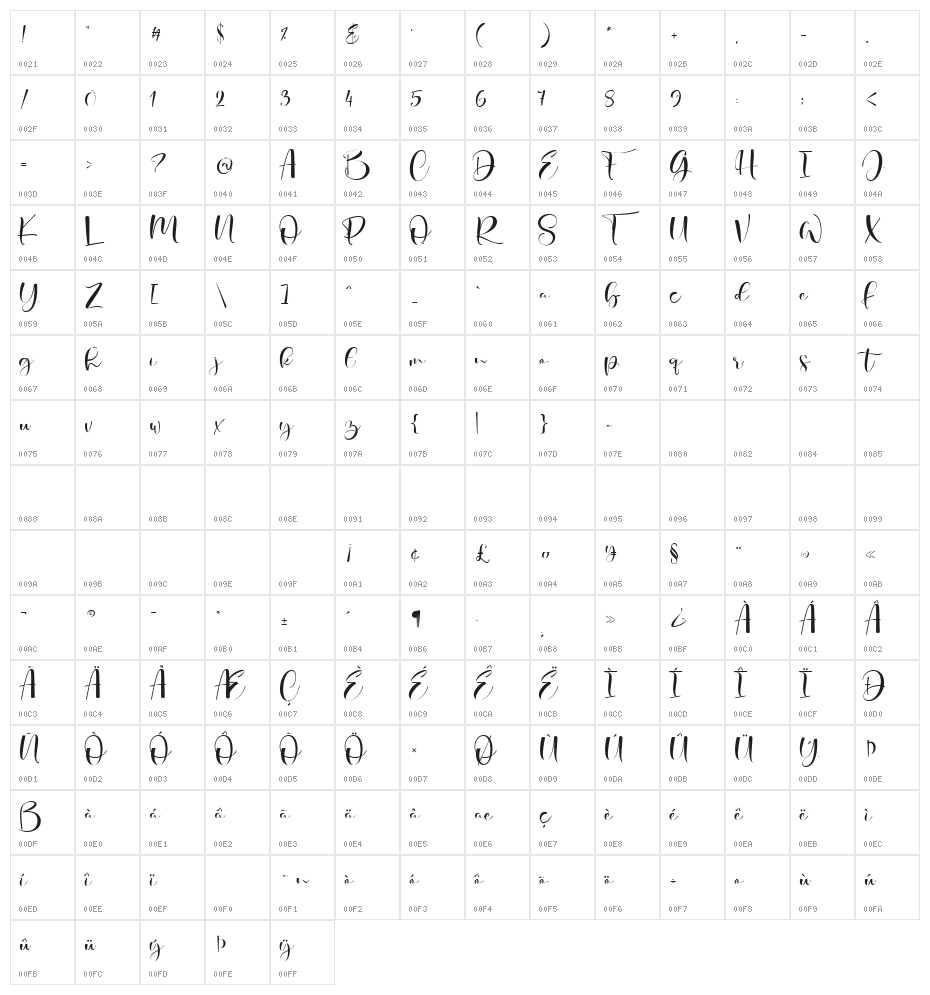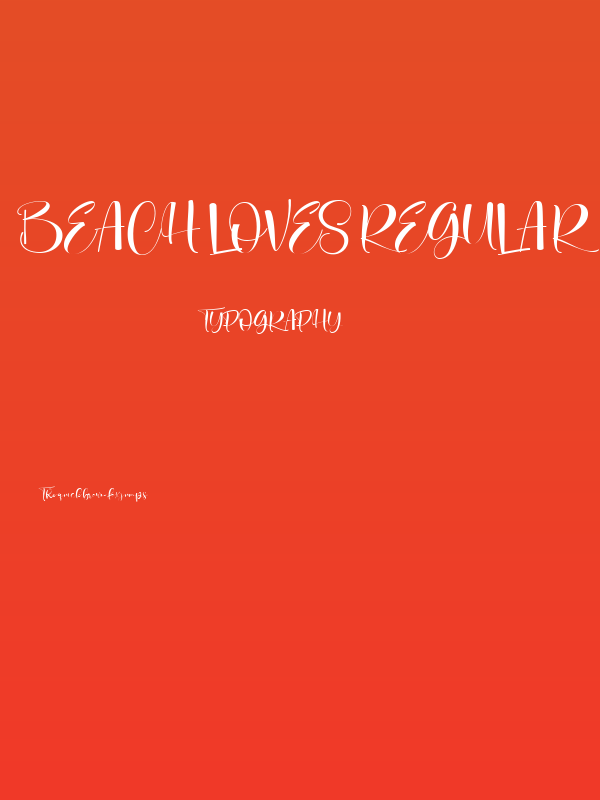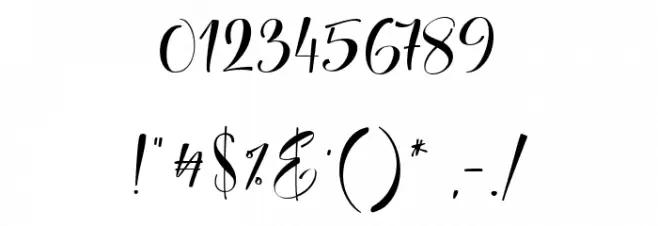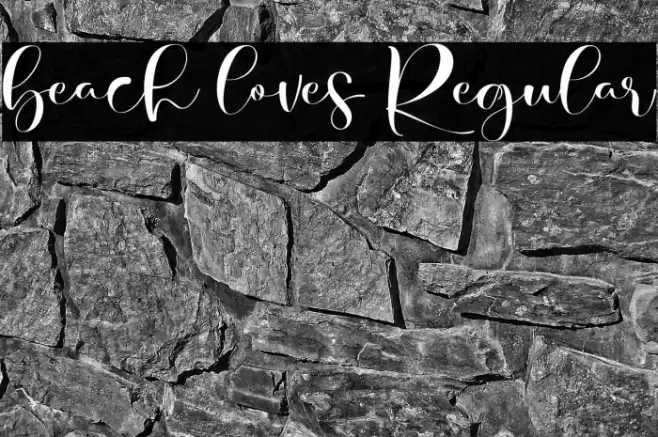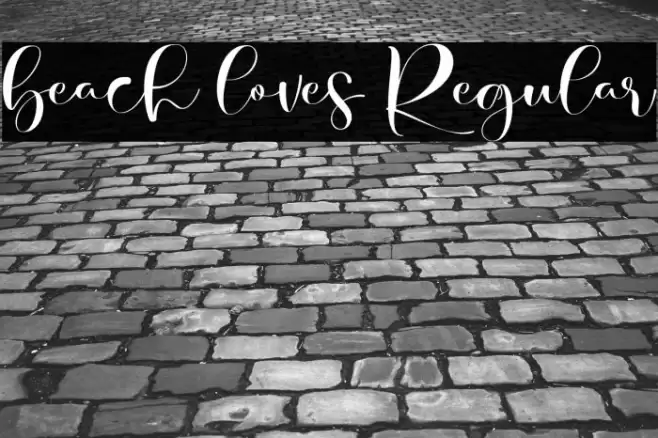
beach loves Regular Font
beach loves Regular Description
This font exudes a playful and elegant charm, characterized by its flowing, cursive script style. The letters are interconnected with graceful loops and swirls, giving it a handwritten feel. The uppercase letters are bold and prominent, while the lowercase letters maintain a delicate balance with their intricate curves. The numbers and special characters are designed with the same fluidity, ensuring consistency throughout. This font is perfect for adding a touch of sophistication and personality to any design project.